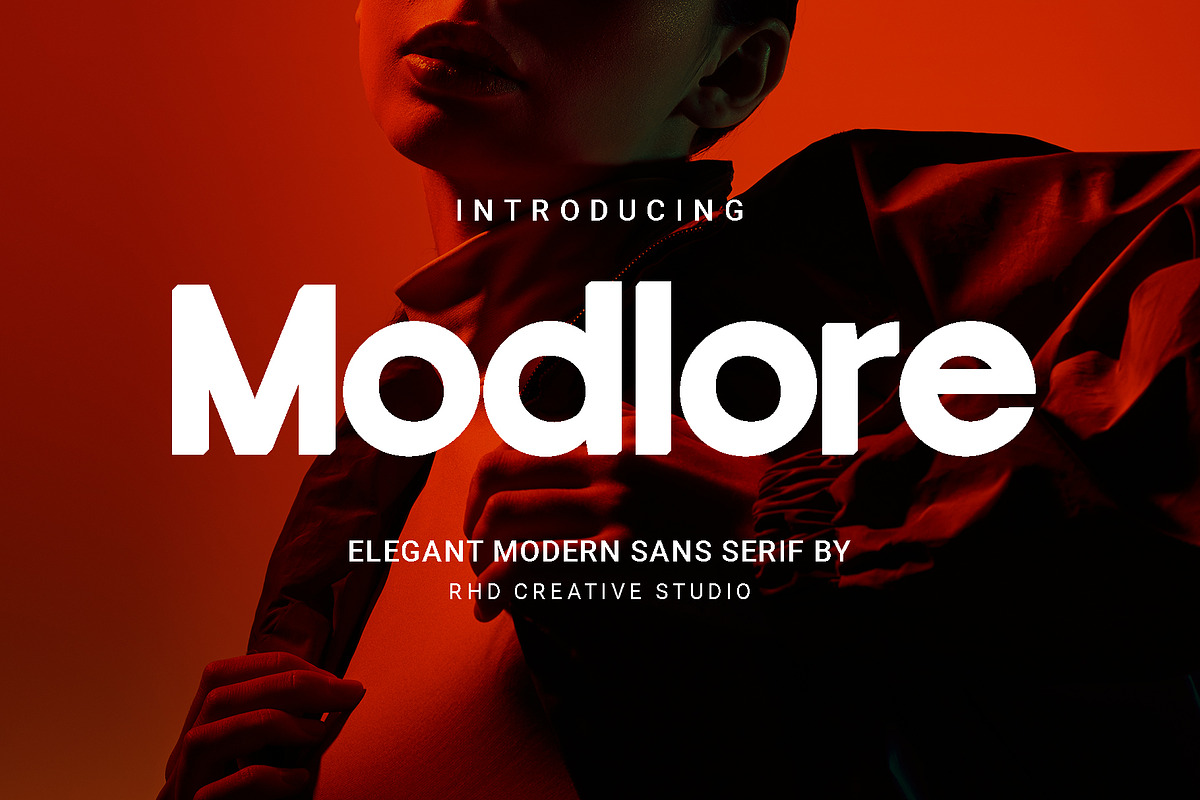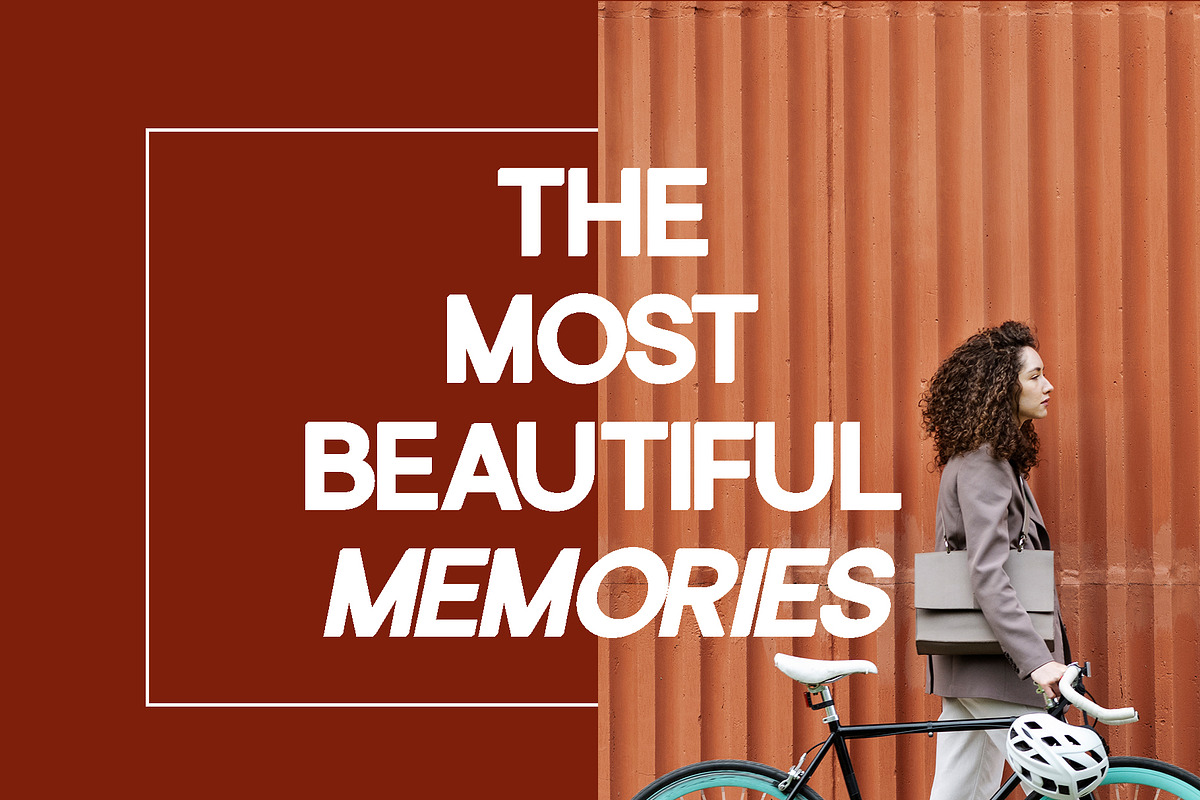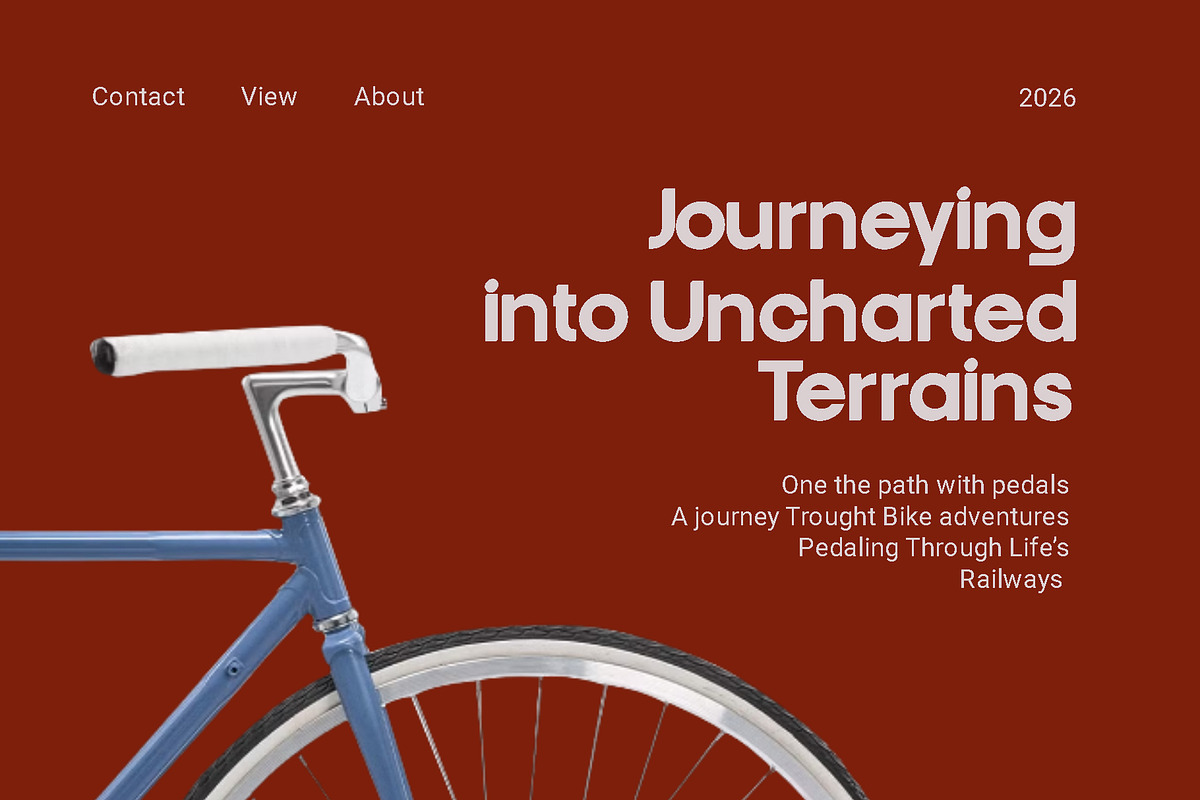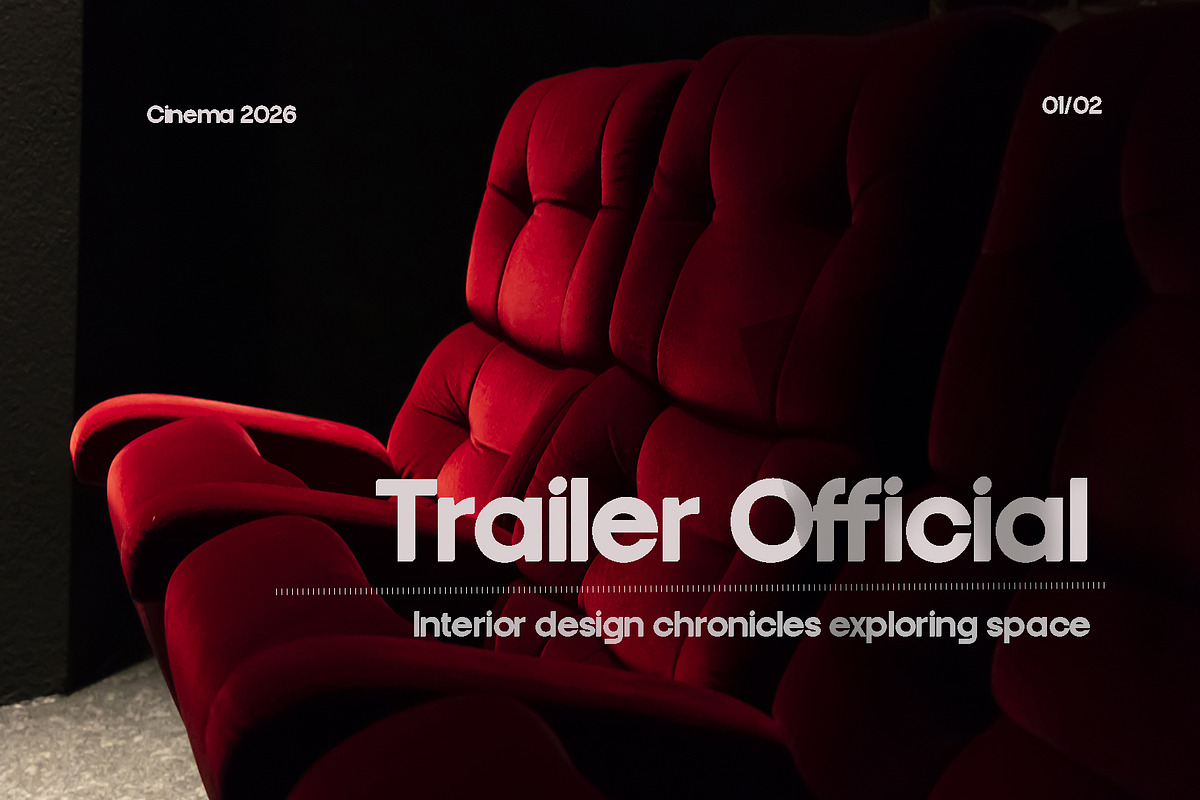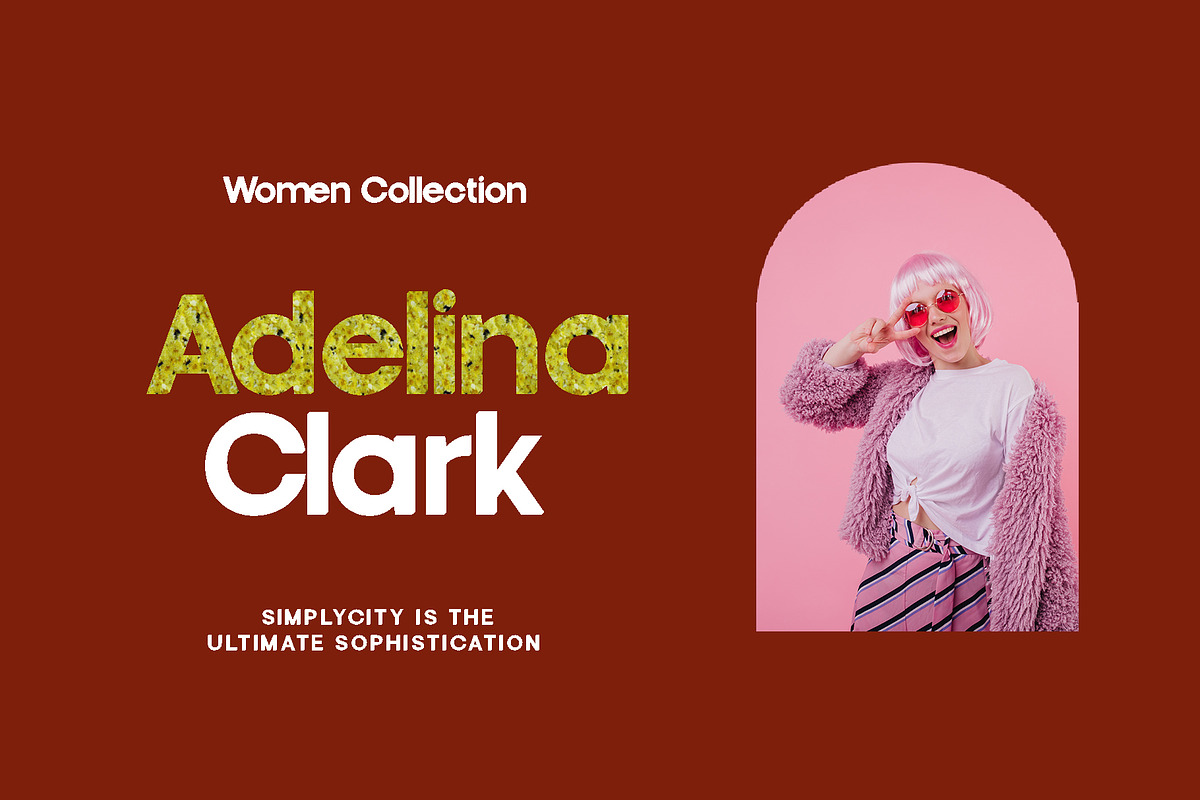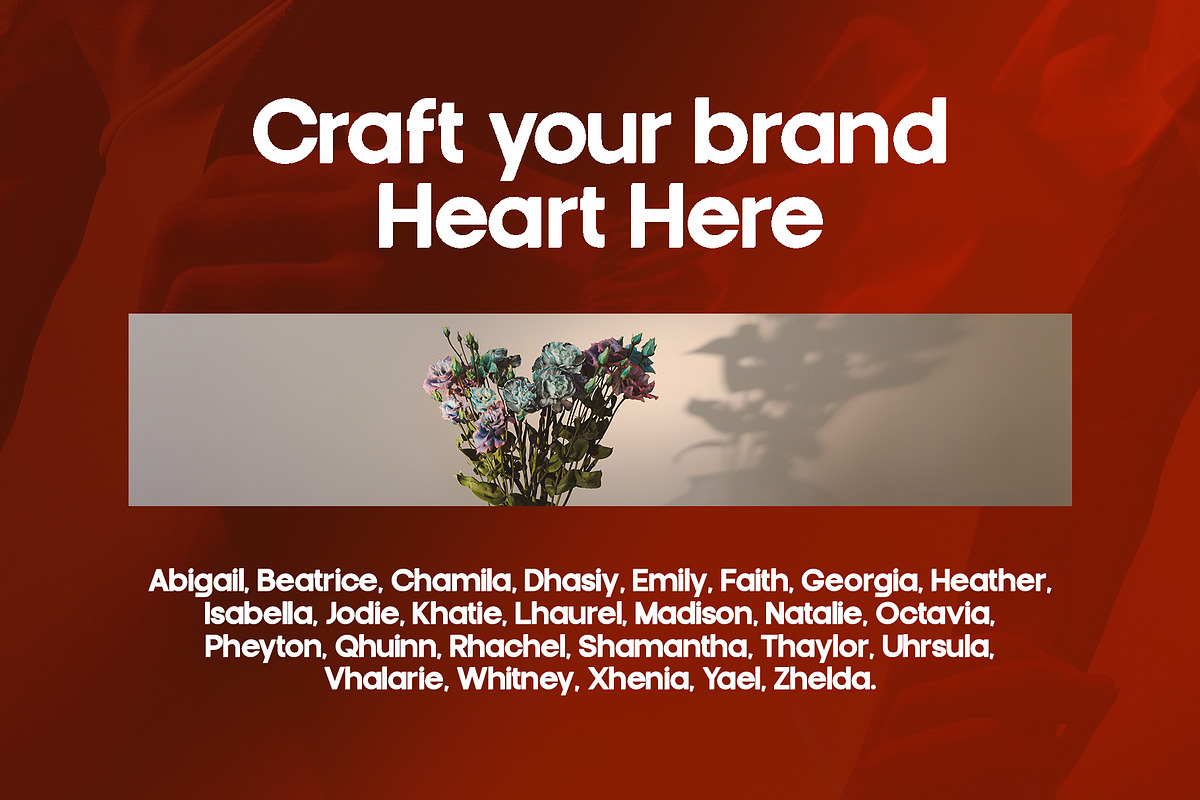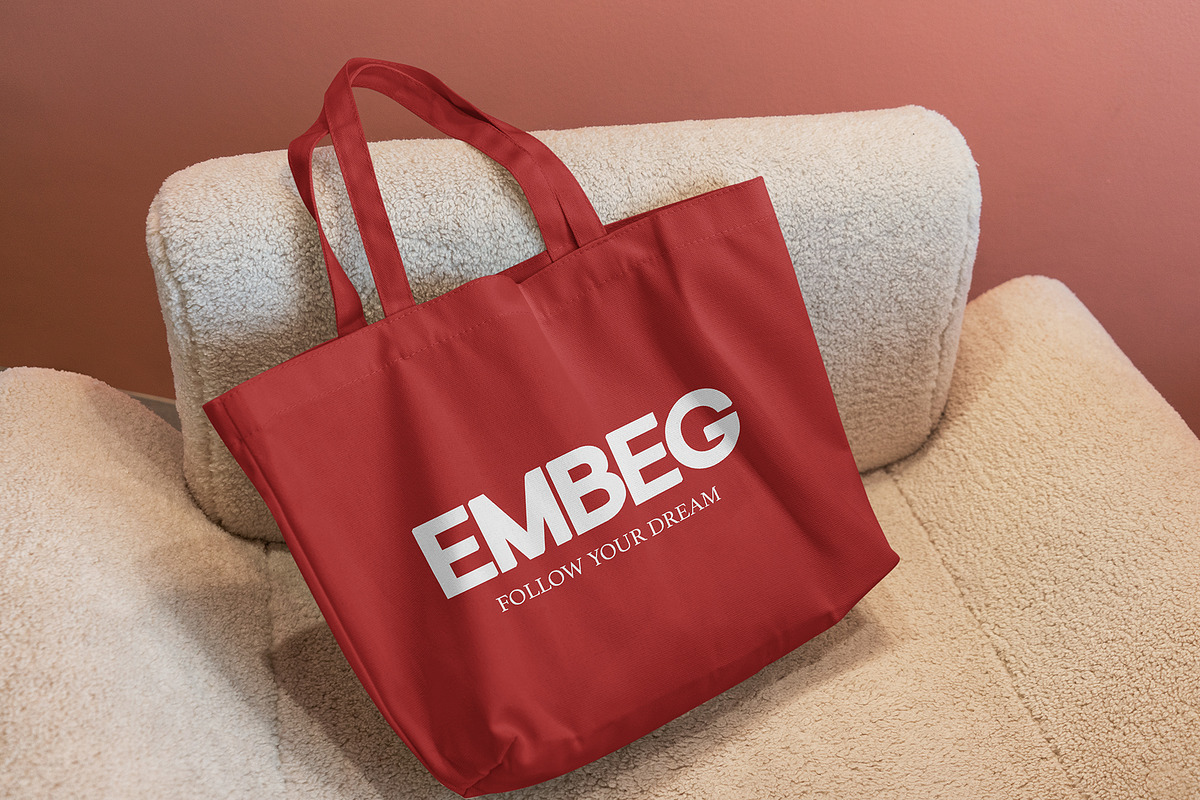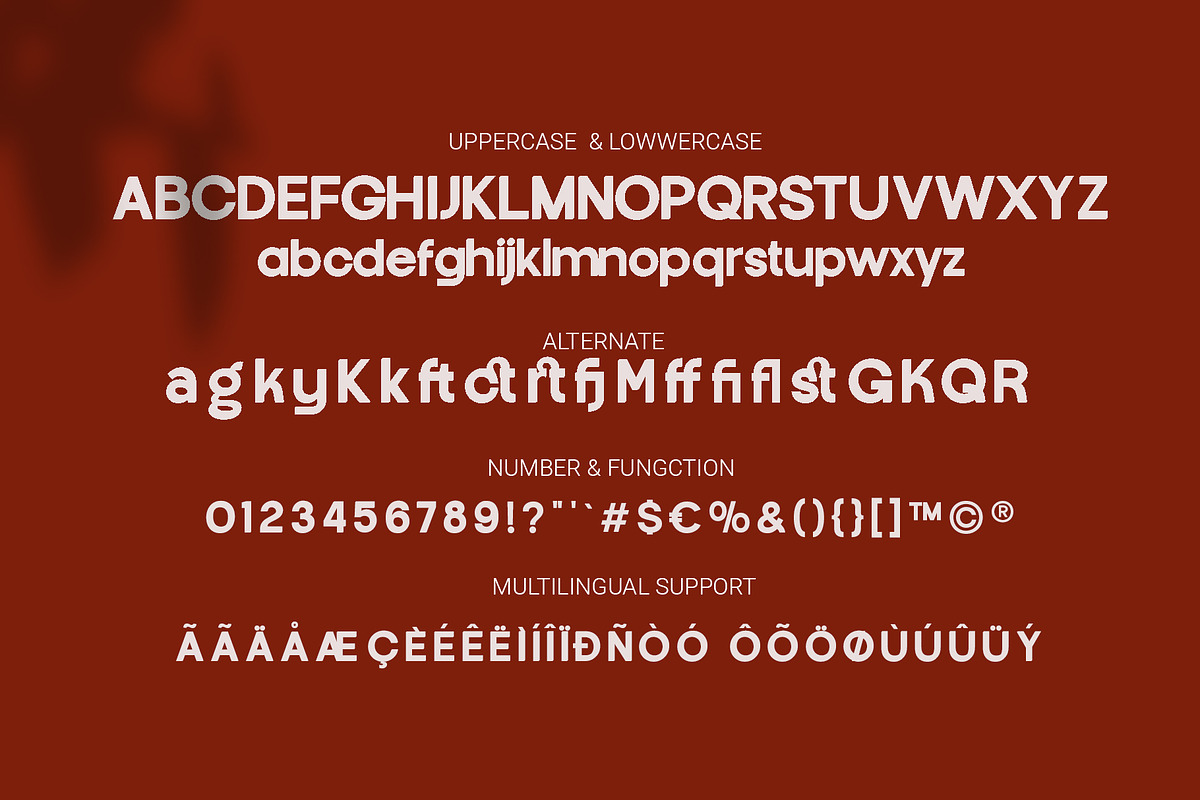
Modlore - Elegant Modern Sans Serif
Hello everyone, I would like to introduce Modlore - Elegant Modern Sans Serif Font
Modlore - Elegant Modern Sans Serif Font with Handmade character. Modlore - Elegant Modern Sans Serif Font, Modern font to make your design project stand out! Modlore a perfectly choice for any creative endeavor, creating, modern, chic, lifestyle design such as logotype, cover, branding, title, invitations, wedding designs, display and magazine, social media posts, advertisements, printed quotes, product packaging, corporate brand, product designs, labels, photography, watermarks, special events and any other project with modern touch.
- Reguler & Italic
- Alternate & Ligature